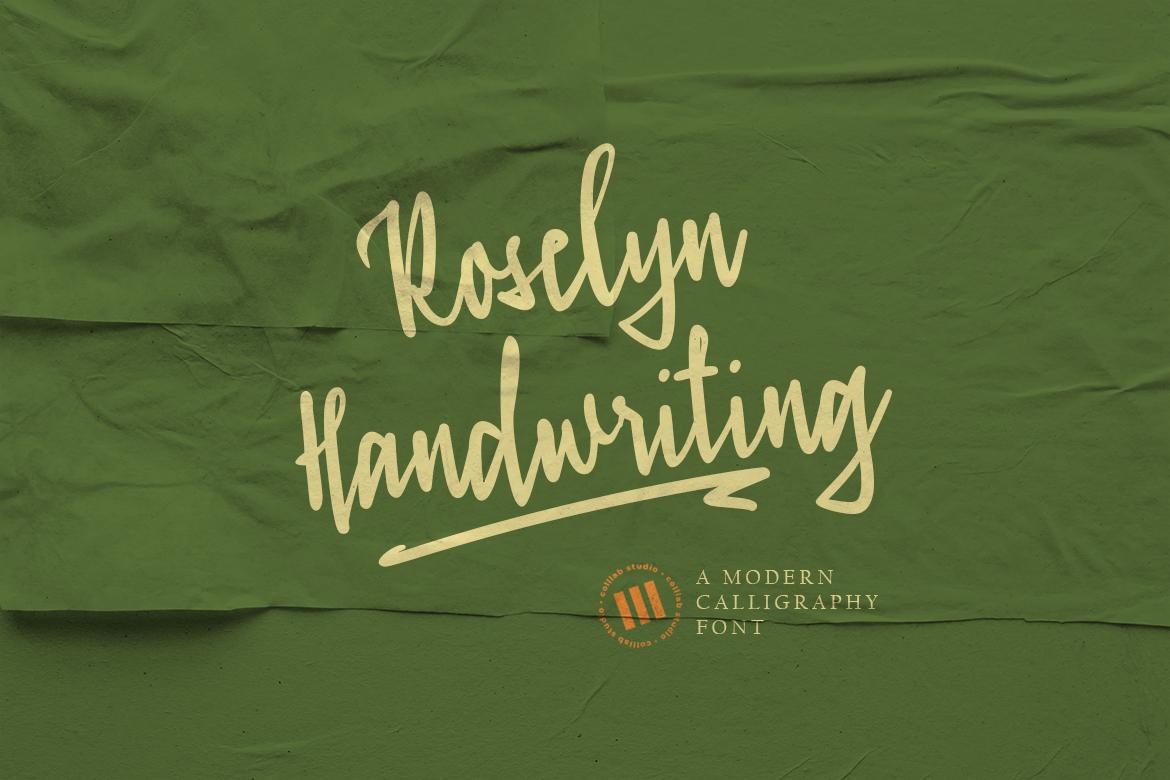
Roselyn Font Description
Roselyn is a lovely and delicate script font that exudes elegance and class. This font was particularly crafted for those who need a beautiful and refreshing look to their designs. Roselyn is PUA encoded which means you can access all of the glyphs and swashes with ease!